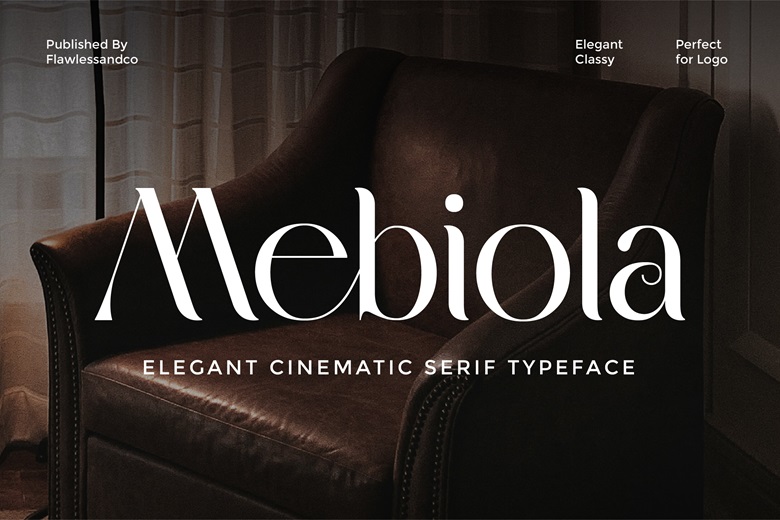
Mebiola Font
Mebiola is a beautiful cinematic serif typeface that is created to add drama, luxury, and sophisticated narration to each design. Having sweeping curves, contrasting strokes, and sculpted serifs, Mebiola can give any brand a visual experience that is both timeless and modern and is best suited to those brands that want to make a lasting impact.
Mebiola Serif Font